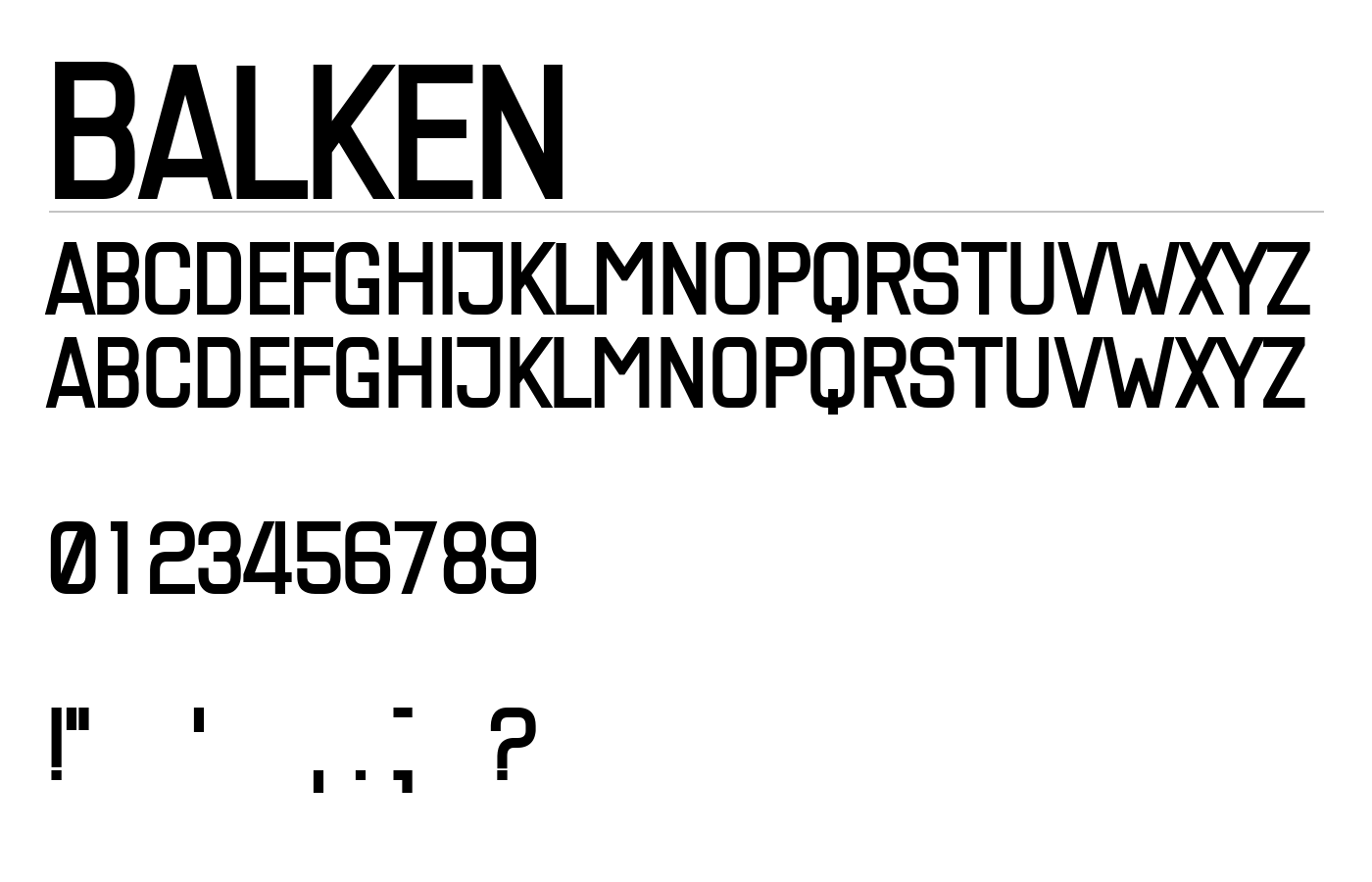
Balken is a bold, condensed sans serif font characterized by its tall, narrow letterforms and uniform stroke weight, giving it a modern and industrial feel. Its clean, geometric shapes and high x-height make it highly legible, ideal for impactful headlines, posters, and branding that require a strong, contemporary presence. This font suits projects seeking a sleek, professional look with a touch of urban sophistication.
Balken Font
About Balken Font